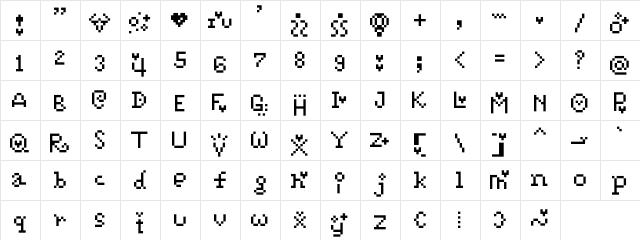
pixelpoiiz Regular
Design Context for pixelpoiiz Typeface
pixelpoiiz celebrates the constraints of early digital type, turning pixel geometry into a distinctive and immediately recognisable style.
A natural choice for retro game titles, chiptune music branding, 8-bit UI, and digital nostalgia projects.